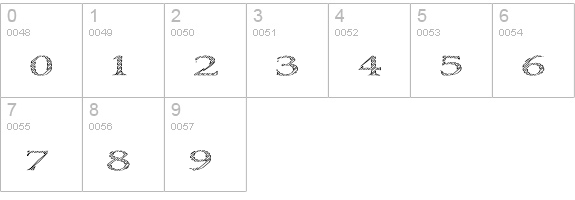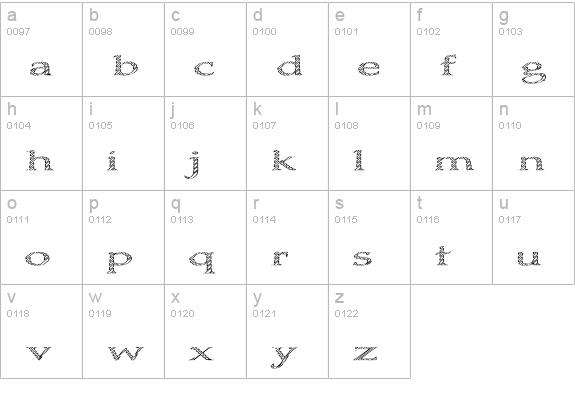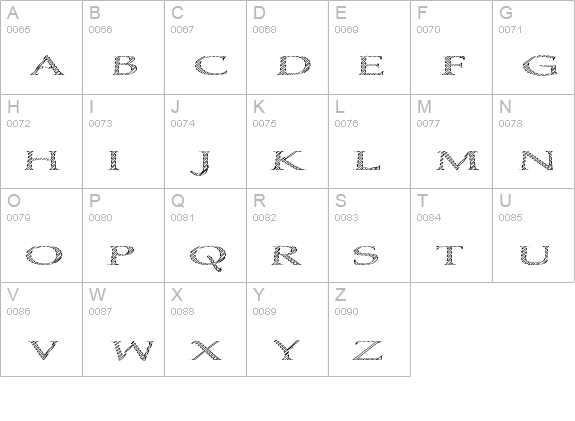
Boldly Go Out font is a sleek and modern typeface designed to make a bold statement in your creative projects. With its clean lines and sharp edges, this font exudes confidence and sophistication. Whether you're working on a logo, poster, or website design, Boldly Go Out font will add a touch of elegance and professionalism to your work. Best of all, this stunning font is available for free download at FontsMarket.com. Don't miss out on the opportunity to enhance your designs with the striking Boldly Go Out font. Download it today and start creating standout visuals that will leave a lasting impression.